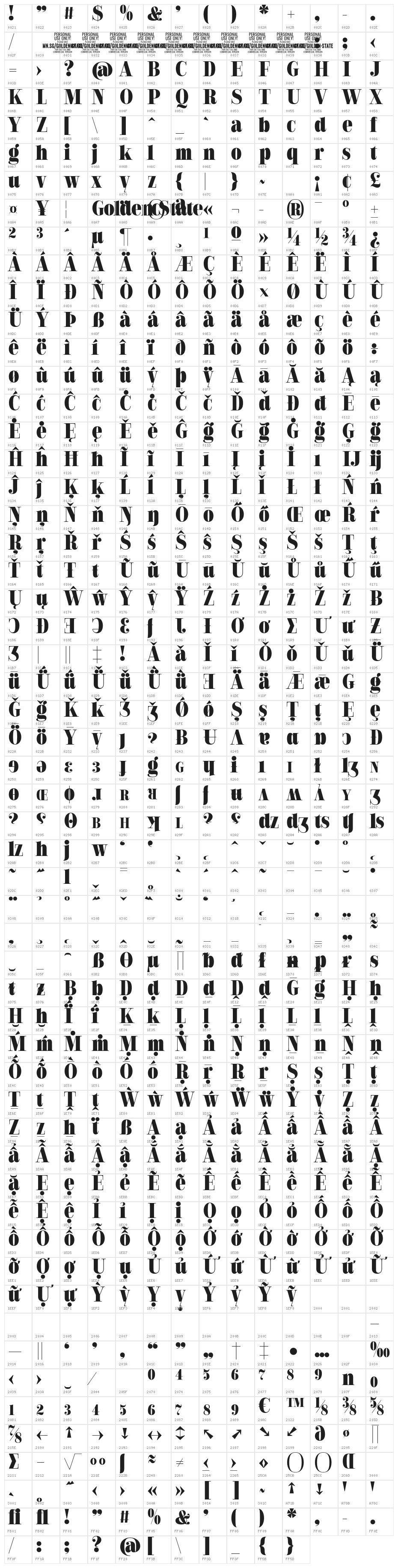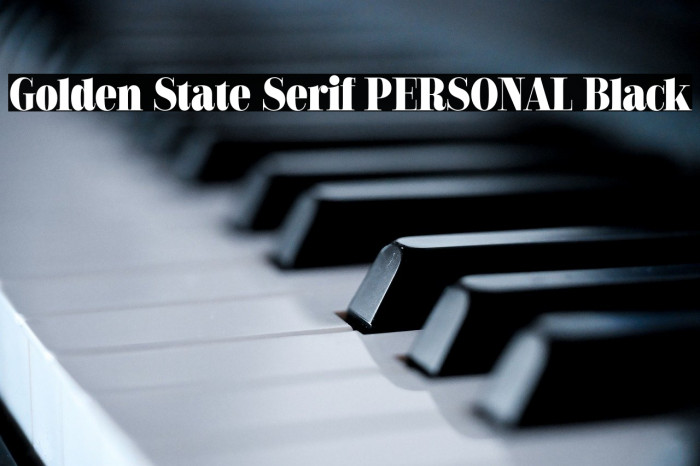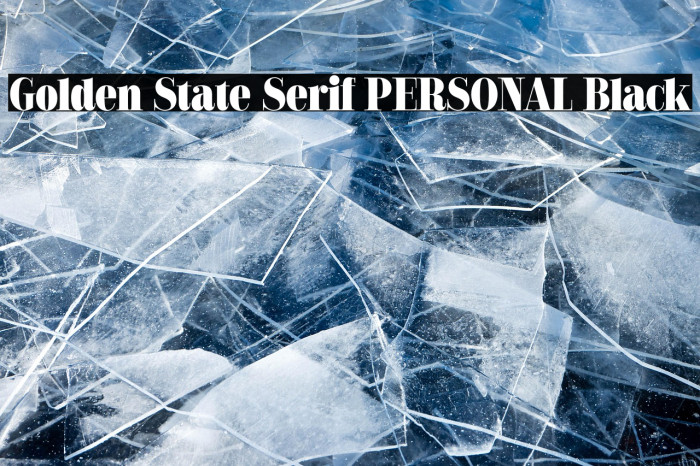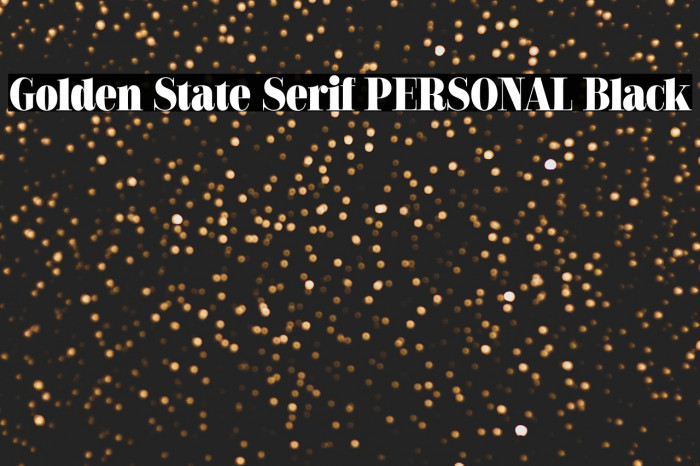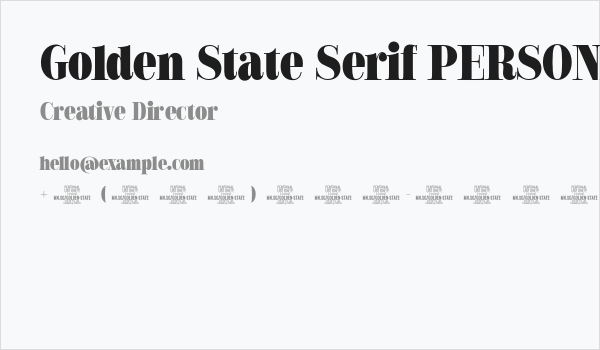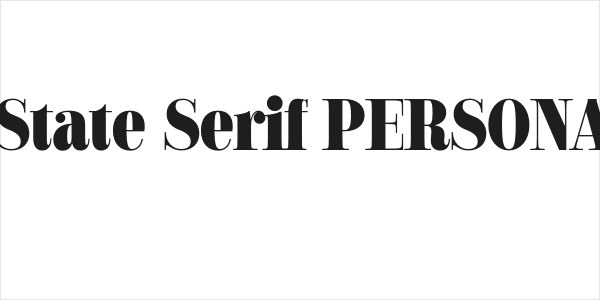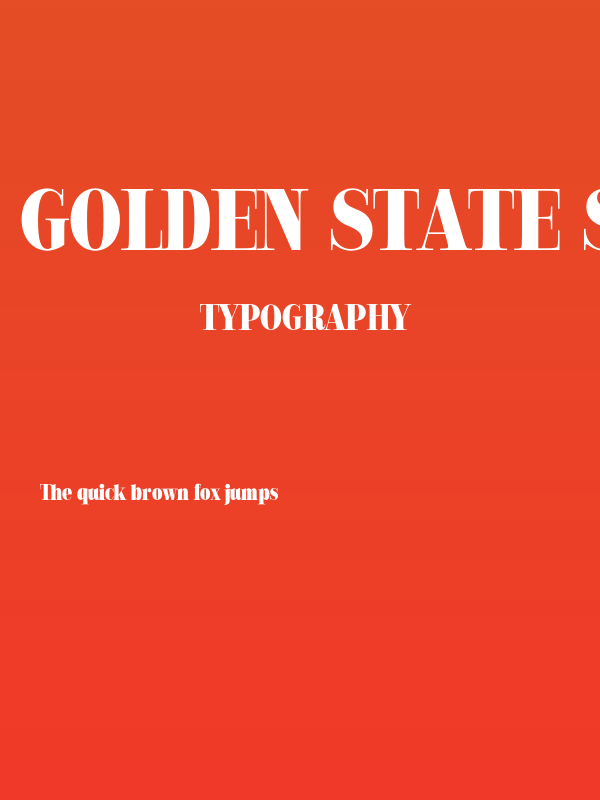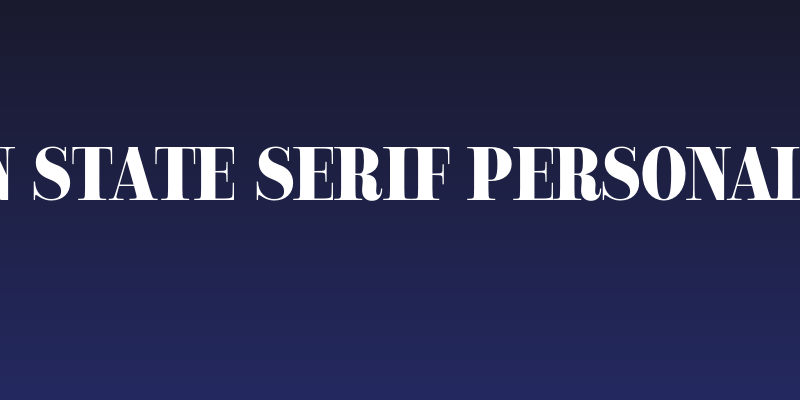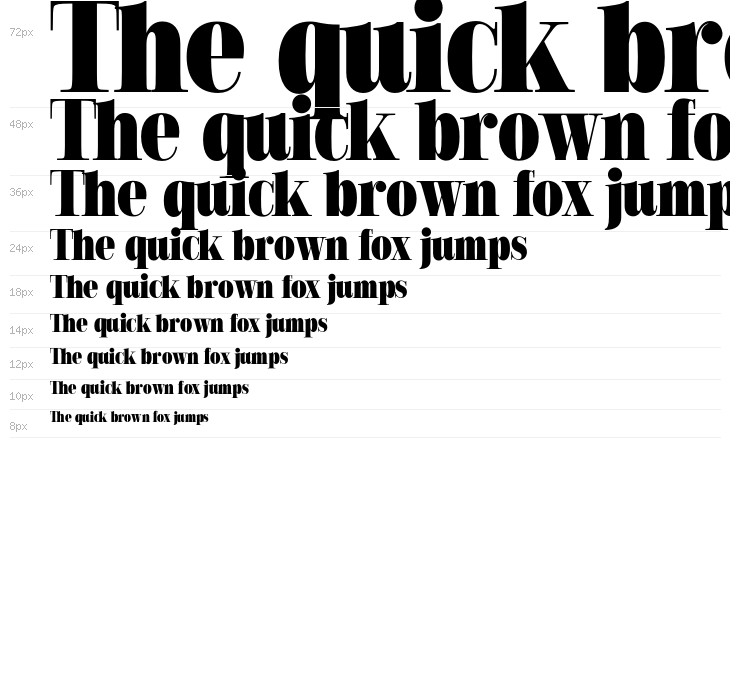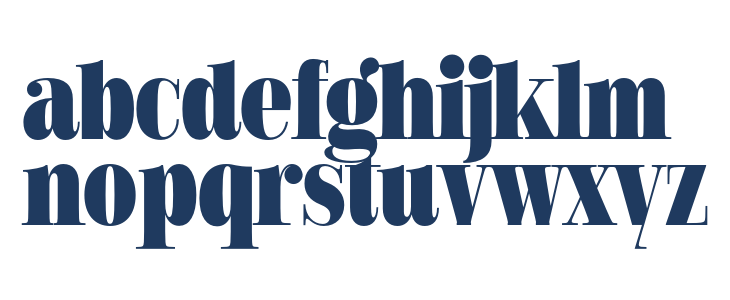
Golden State Serif PERSONAL Black Font
Golden State Serif PERSONAL Black Description
This font exhibits a bold and striking serif style, characterized by thick, prominent strokes and sharp, angular serifs. The uppercase letters are tall and commanding, while the lowercase letters maintain a consistent weight, offering a strong visual presence. The numerals and special characters are equally bold, ensuring readability and impact. This font's design is reminiscent of classic serif typefaces but with a modern twist, making it suitable for a variety of applications where a strong, authoritative look is desired.
| Proposed Projects | Ideal for branding, headlines, posters, and editorial design where a bold statement is needed. |